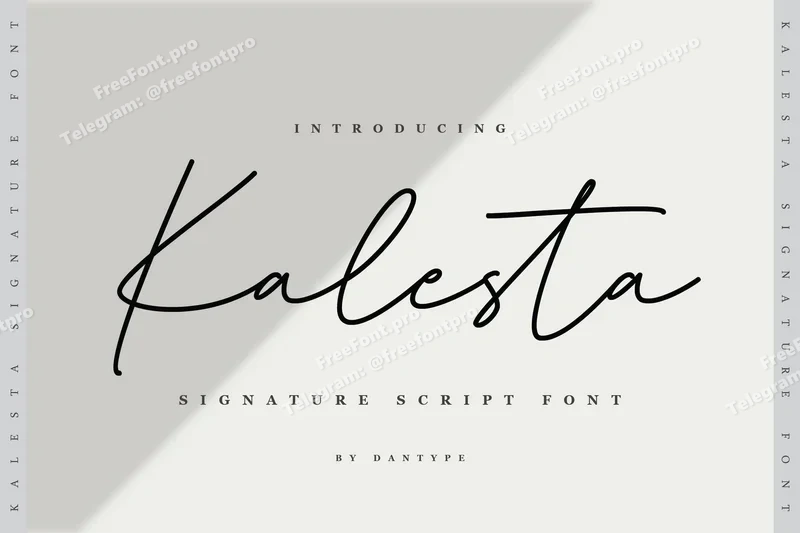
Kalesta – Modern Signature Font
Kalesta is a clean signature handwriting font featuring smooth strokes and balanced letterforms. It’s suitable for branding, logo design, packaging, and wedding projects. The font provides both uppercase and lowercase characters, numbers, and punctuation. It also includes multilingual support and PUA encoding for easy access to alternate characters. Kalesta offers a natural handwritten flow that works well in digital and print designs, such as invitations, product labels, and business identities.